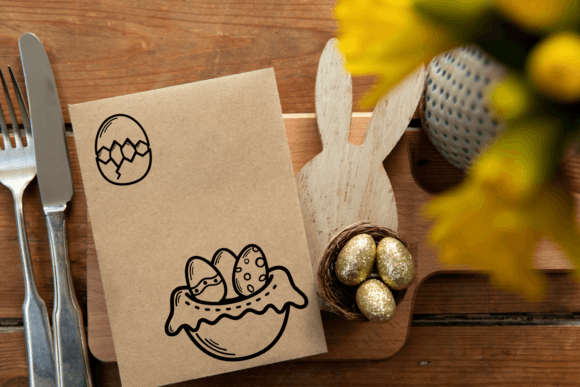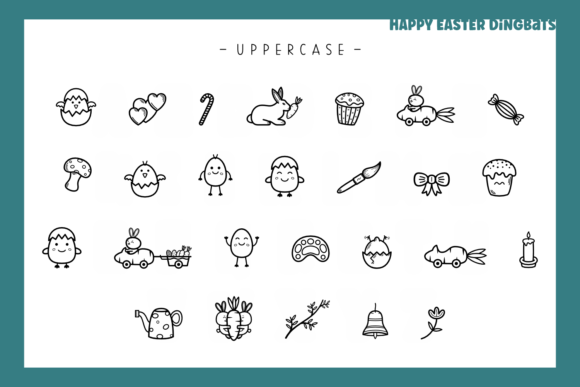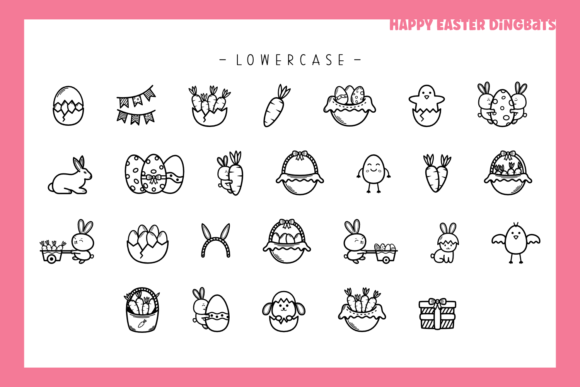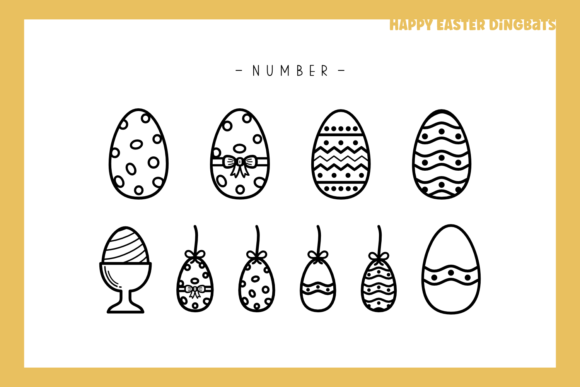
Happy Easter Dingbats Font: A Playful and Adorable Addition to Your Easter Designs
Are you looking for a fun and unique way to add a festive touch to your Easter-themed designs? Look no further than the Happy Easter Dingbats Font! This playful and adorable font is perfect for designers and crafters who want to create eye-catching and engaging content for their audience.
What is Happy Easter Dingbats Font?
Happy Easter Dingbats Font is a special font that features tiny and intricate Easter elements like eggs, bunnies, and flowers. Each character in the font is carefully designed to bring a touch of Easter magic to your designs. Whether you’re creating greeting cards, invitations, or social media graphics, this font is sure to delight and enchant your audience.
Key Features of Happy Easter Dingbats Font
- Playful and Adorable Design: The Happy Easter Dingbats Font features a playful and adorable design that’s perfect for Easter-themed designs.
- Easter Elements: Each character in the font features tiny and intricate Easter elements like eggs, bunnies, and flowers.
- Festive Touch: This font adds a festive touch to your designs, making them perfect for Easter-themed content.
- Unique and Fun: The Happy Easter Dingbats Font is a unique and fun way to add some personality to your designs.
Why Use Happy Easter Dingbats Font?
There are many reasons why you should use the Happy Easter Dingbats Font in your Easter-themed designs. Here are a few:
- Stand Out from the Crowd: With its unique and playful design, the Happy Easter Dingbats Font is sure to make your designs stand out from the crowd.
- Add a Personal Touch: This font adds a personal touch to your designs, making them more engaging and relatable to your audience.
- Perfect for Easter Content: The Happy Easter Dingbats Font is perfect for creating Easter-themed content, such as greeting cards, invitations, and social media graphics.
Tips and Ideas for Using Happy Easter Dingbats Font
Here are some tips and ideas for using the Happy Easter Dingbats Font:
- Use it for Greeting Cards: Use the Happy Easter Dingbats Font to create adorable Easter greeting cards.
- Create Easter Invitations: Create Easter invitations using this font and add a personal touch to your party invites.
- Add it to Your Social Media Graphics: Add the Happy Easter Dingbats Font to your social media graphics to make them more engaging and festive.
- Use it for Easter Crafts: Use this font to create Easter crafts, such as Easter egg decorations or bunny-themed DIY projects.
| Font Name | Happy Easter Dingbats Font |
| Author | Feri (7NTypes) |